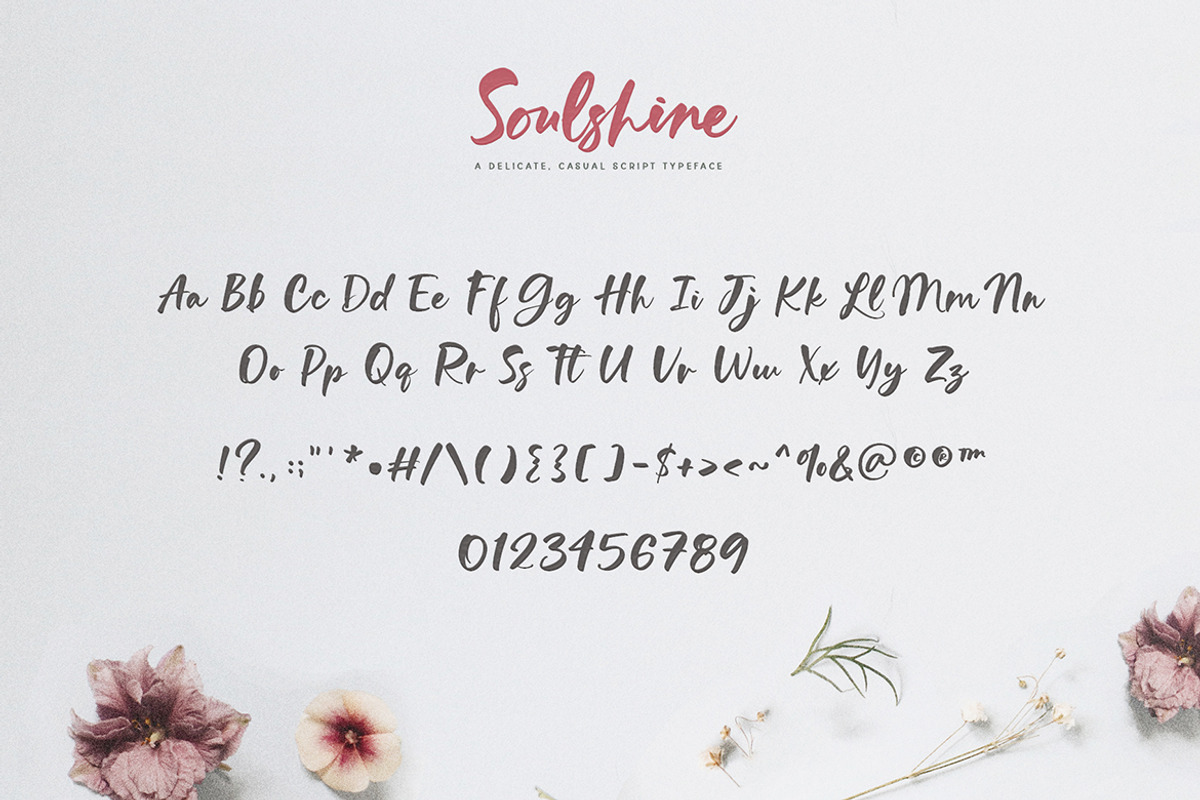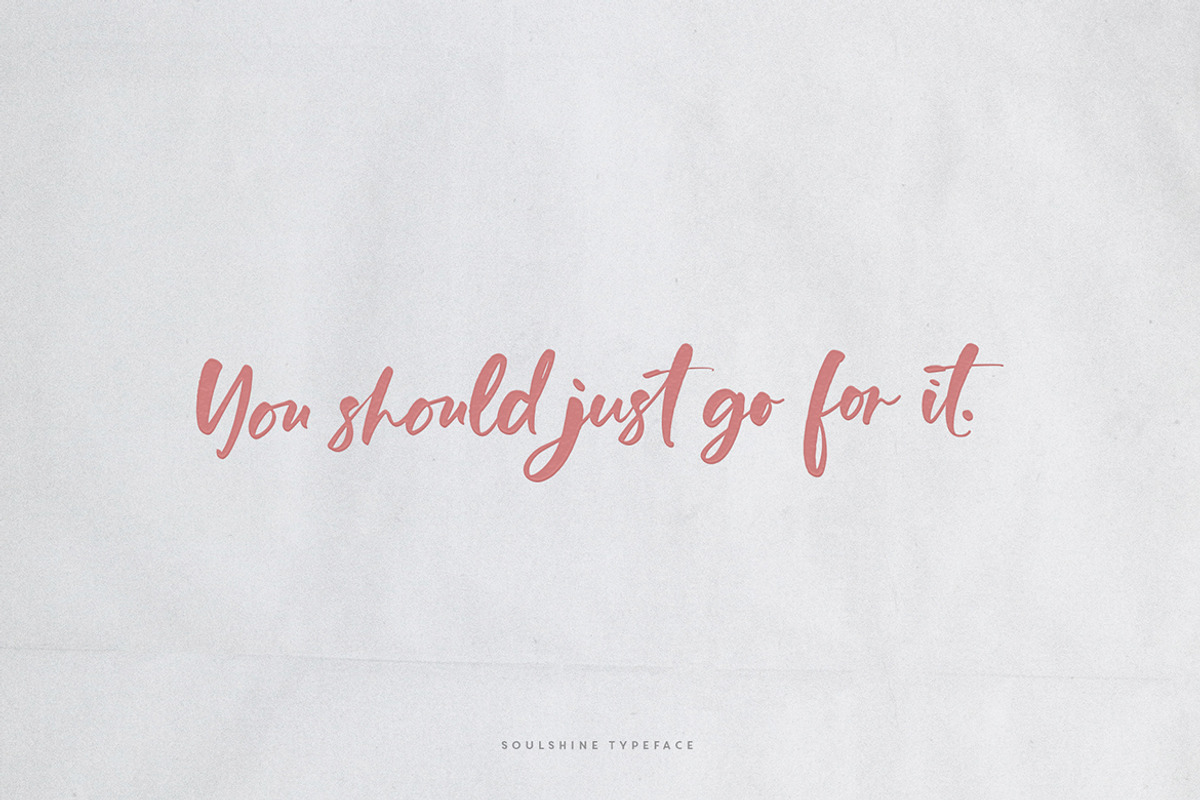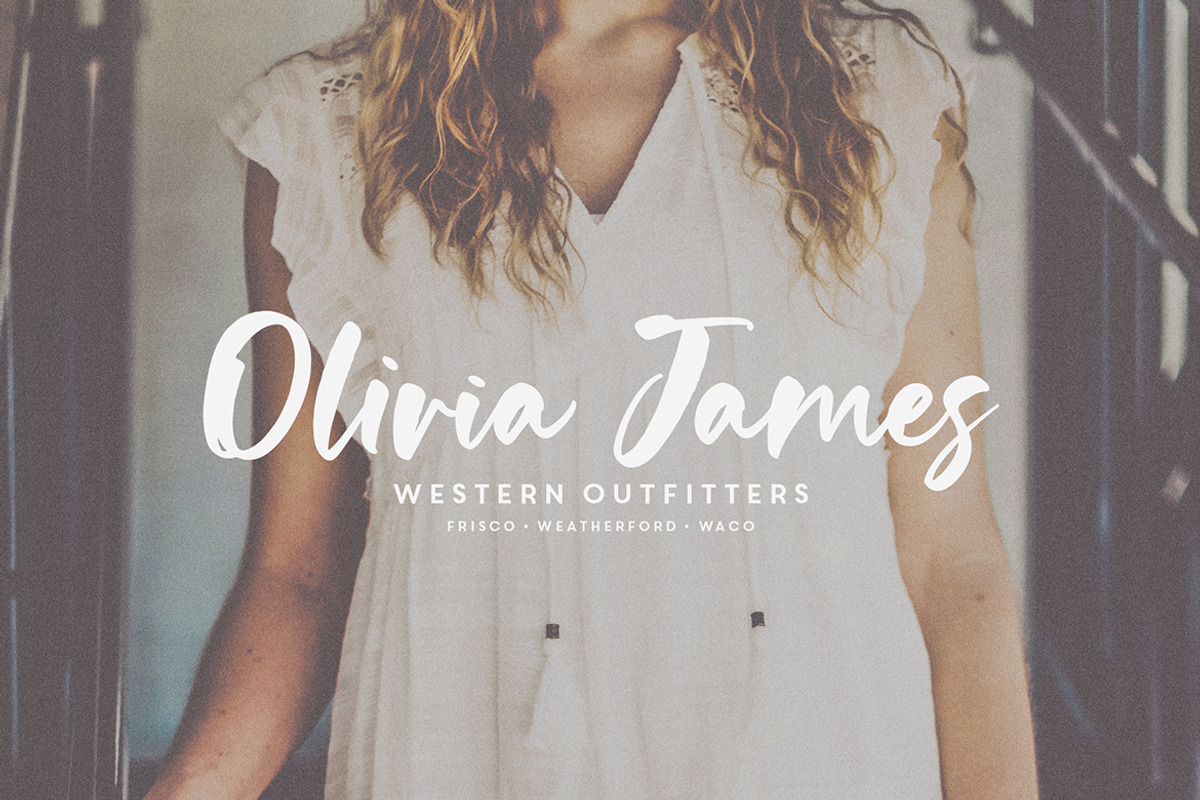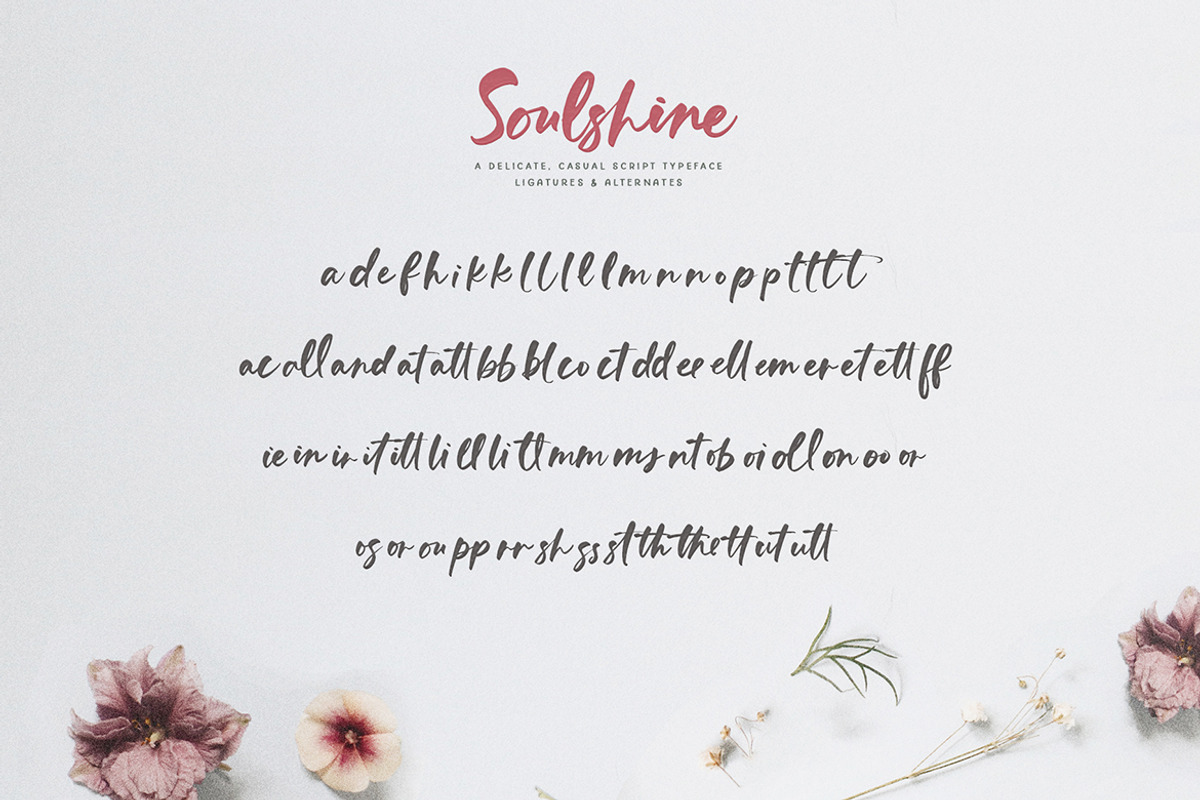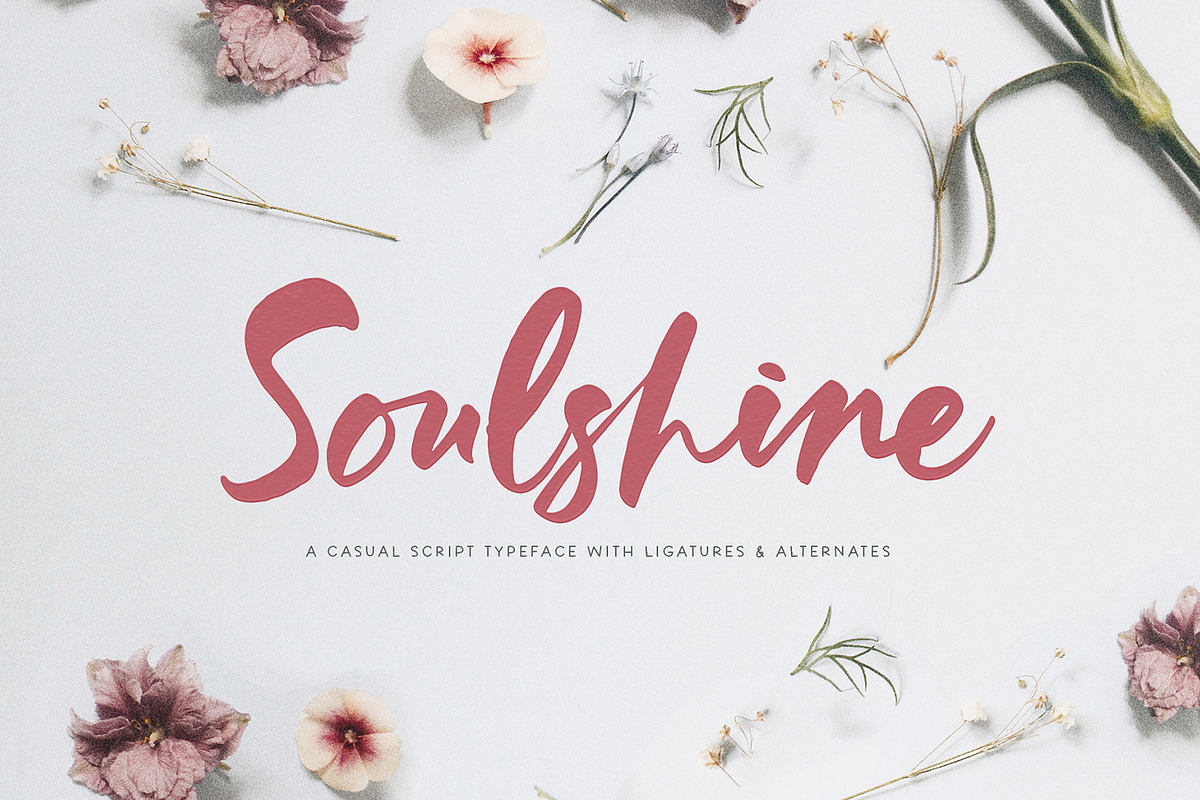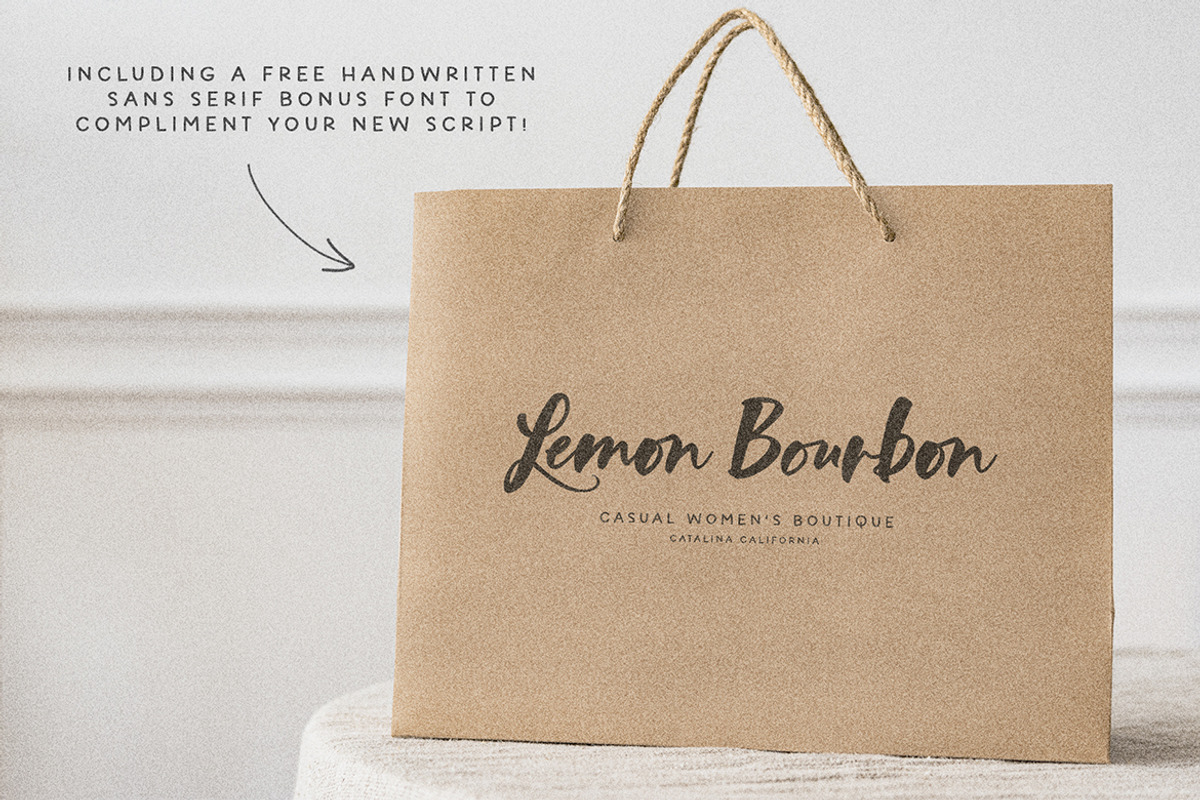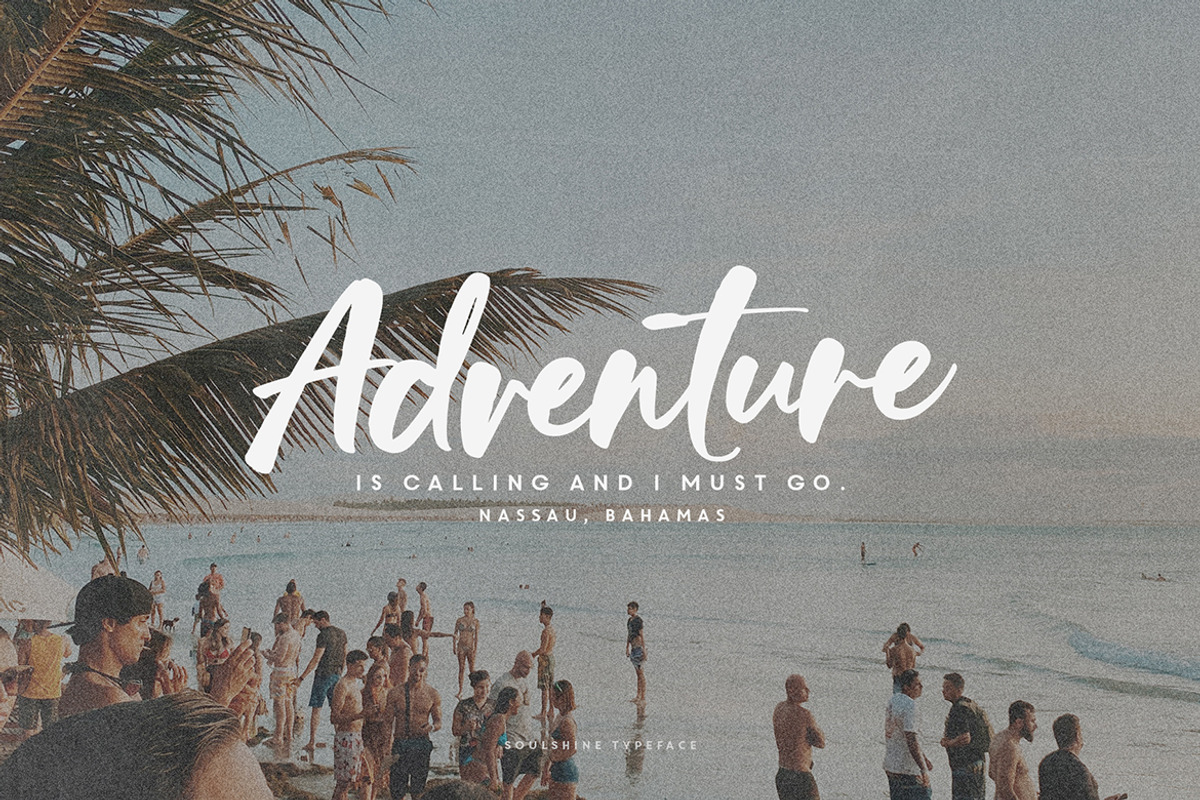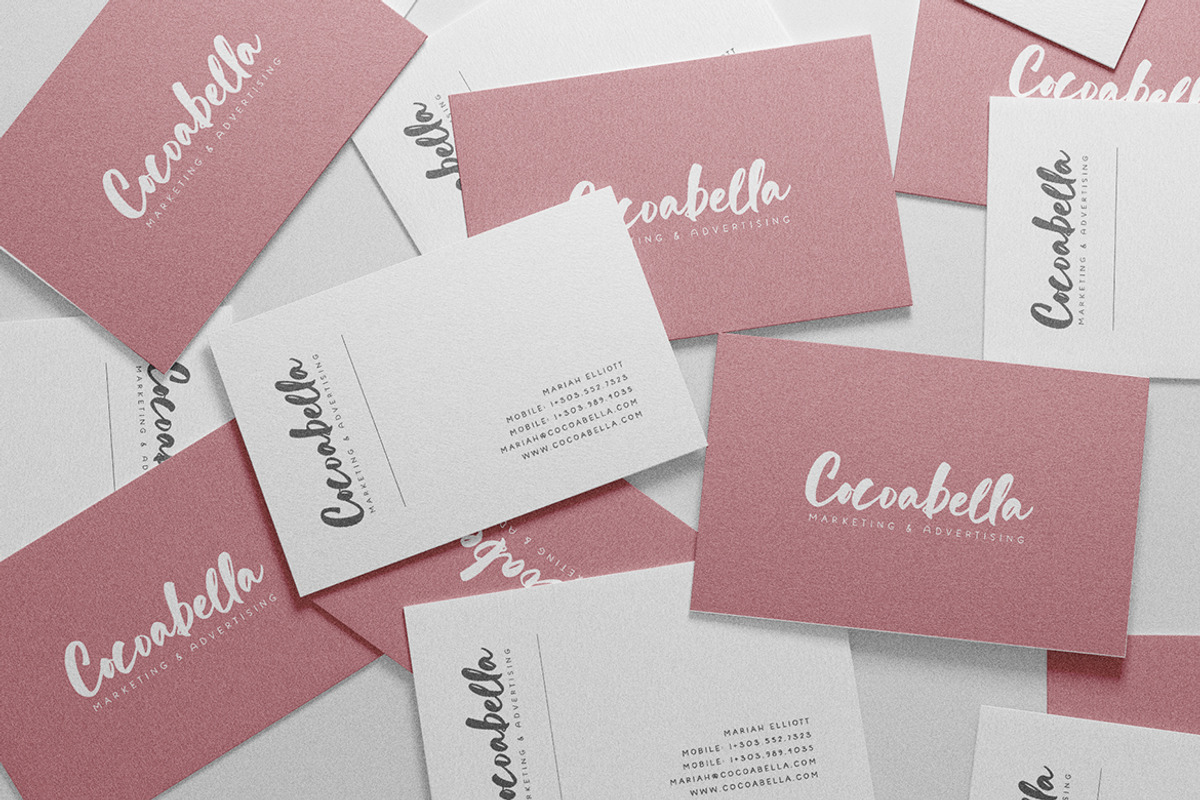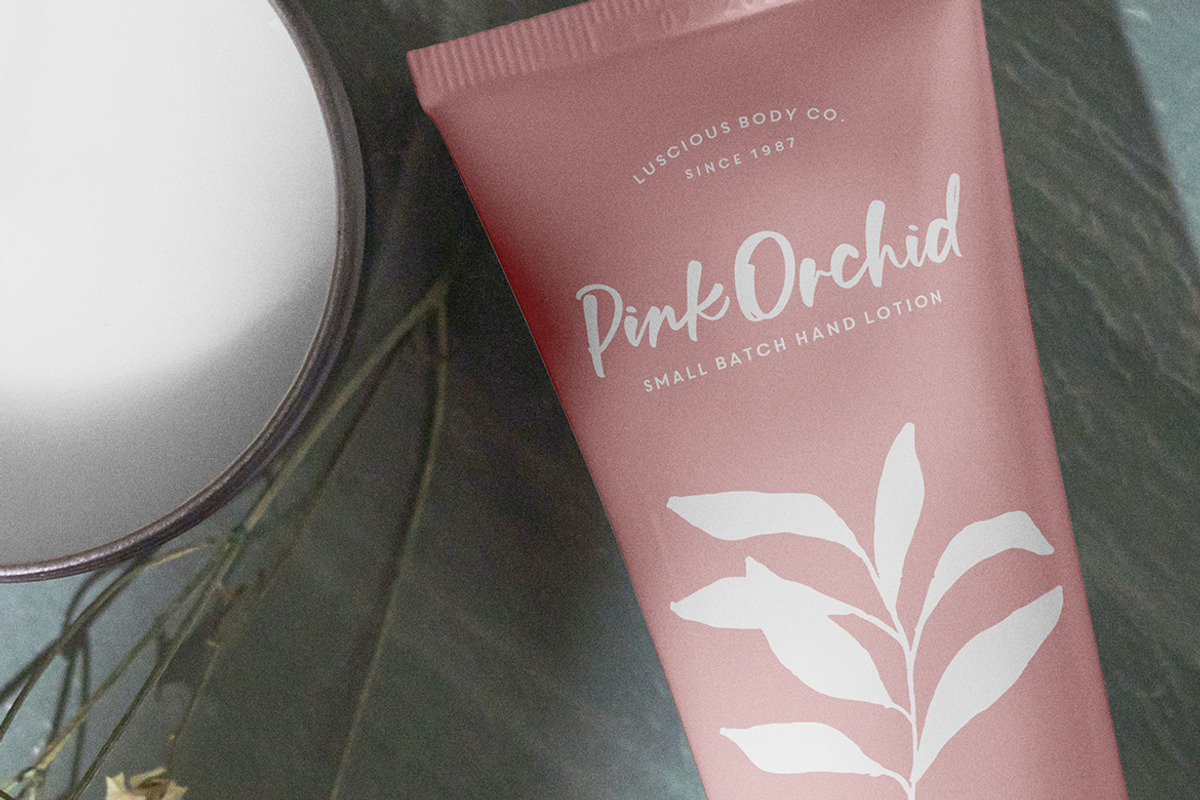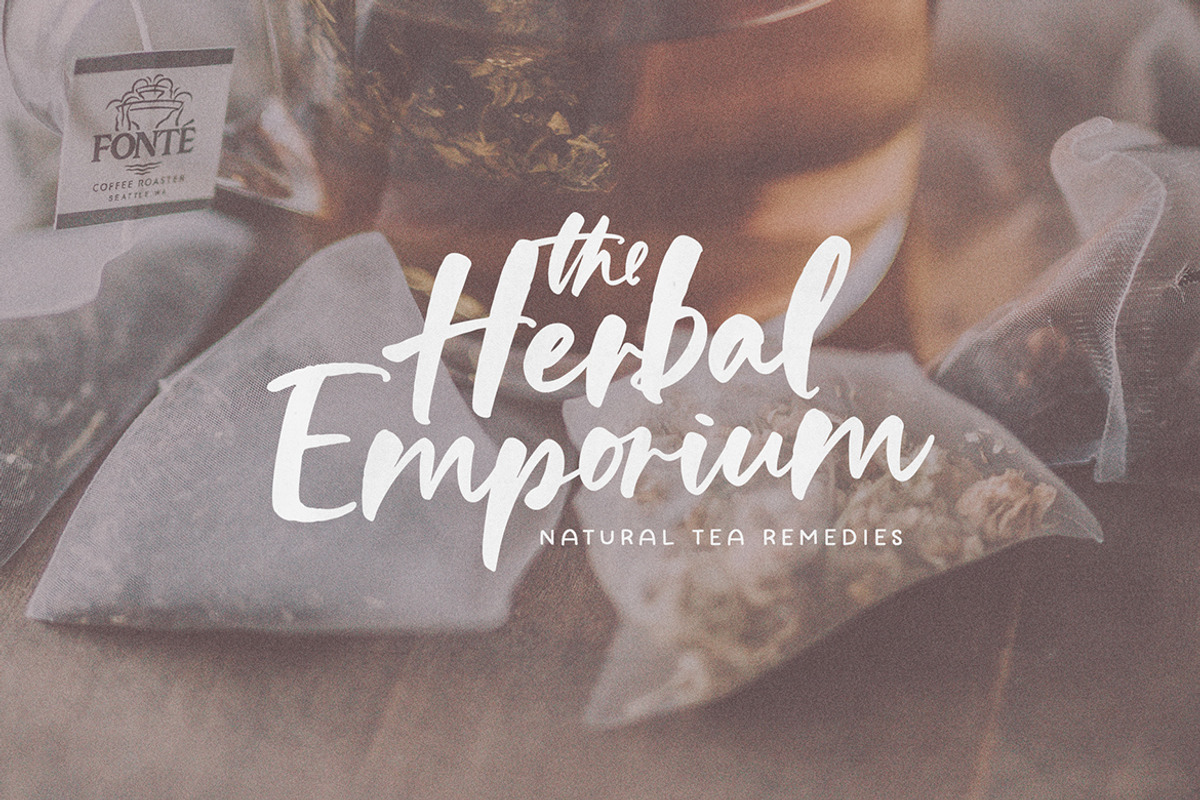
Soulshine Brush Script
Font lovers rejoice! Brush fonts are back! And it’s time for a chunky one! Introducing Soulshine, a thick, casual script with loads of ligatures and alternates! Use on headlines, websites, products, packaging, business cards, quotes, totes, stickers, logos, branding and so much more! It’s fun, but oh so legible, and is the perfect compliment to so many projects!
- 70 Ligatures & Alternates
- BONUS: A free hand-drawn sans serif to compliment your gorgeous script.
- Note this font is handwritten and meant to look like calligraphy, so it’s NOT smooth. It may or may not cut well with a Circuit or Silhouette machine.